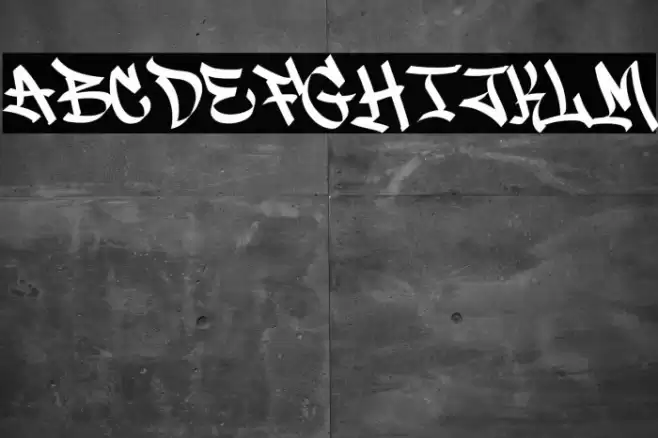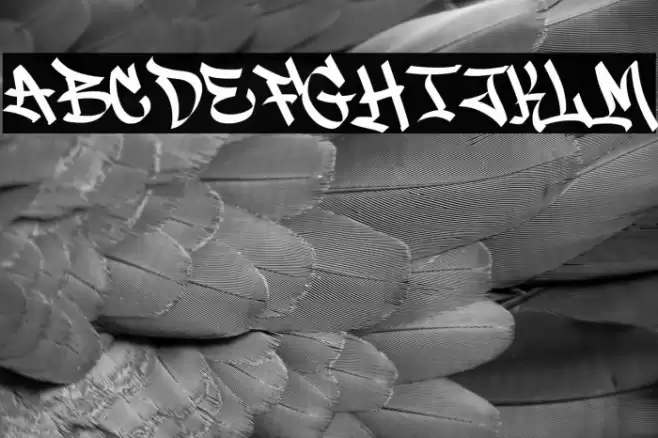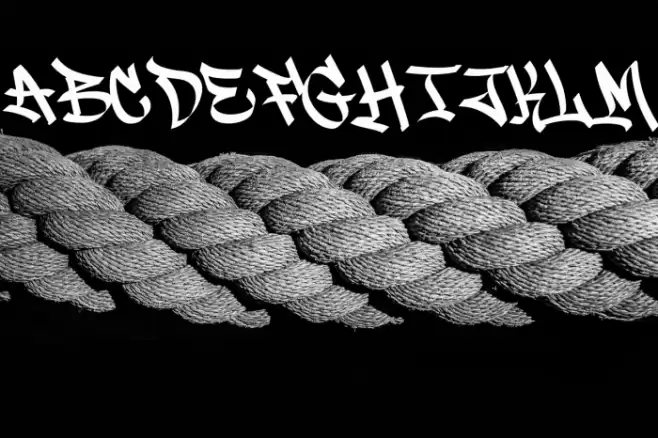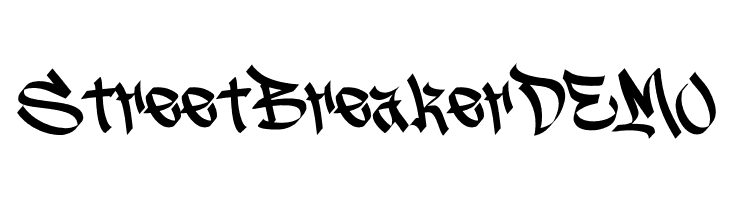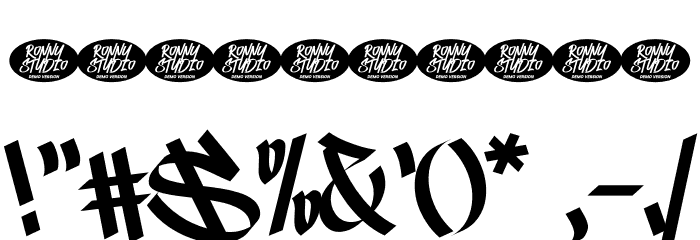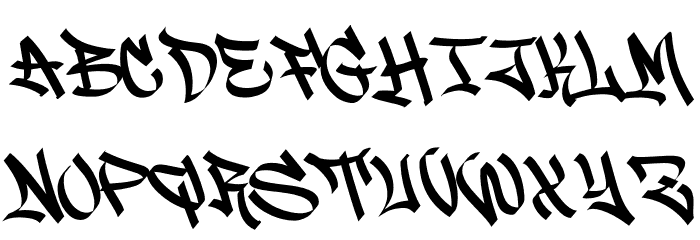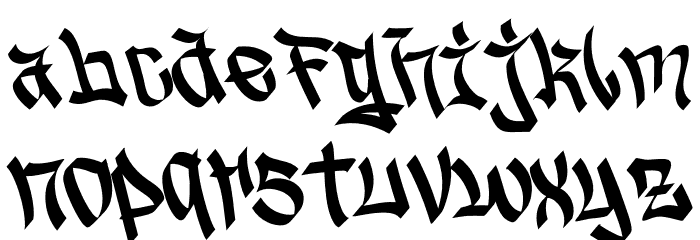
Street Breaker DEMO Font
Street Breaker DEMO Description
A bold, angular display typeface with sharp, graffiti-inspired strokes and dramatic, exaggerated letterforms. The characters feature high contrast between thick and thin lines, with a dynamic, energetic appearance suitable for urban or street-themed designs.
Bold, graffiti-style display font with sharp, angular forms.
- Font: Street Breaker DEMO
- Proposed Projects: Streetwear branding, music album covers, event posters, skateboarding graphics, urban art projects.
- Character Spacing: Tight
- Overall Style: Decorative, Urban, Graffiti